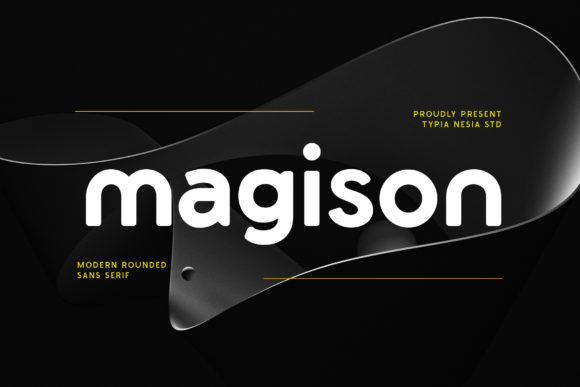
Introducing Magison Font, the best font for retina display! This modern rounded bold sans serif font is the perfect choice for your upcoming design projects. Created by Typia Nesia, Magison is an impressive Techno Gadget Tech/Technology Display Font that can elevate your designs to the next level.
Magison Font is versatile and can be used for various design projects. Whether you're creating a logo branding, editorial design, stationery design, esport design, 80s retro design, game industry, sports racing, techno/gadget brand, digital music poster, apps startup design, modern advertising design, art quote, home decor, book/cover title, or special events, this font will add a touch of sophistication to your work.
The rounded edges of the font give it a modern and futuristic look, making it the perfect choice for designs related to technology, gadgets, and digital media. The bold and strong appearance of Magison Font will make your design stand out from the crowd.
Using Magison Font is a great way to create a lasting impression on your audience. It's eye-catching and captivating, and will help you convey your message in a clear and concise manner. With its impressive legibility, Magison Font is ideal for display purposes and can be used on a variety of mediums.